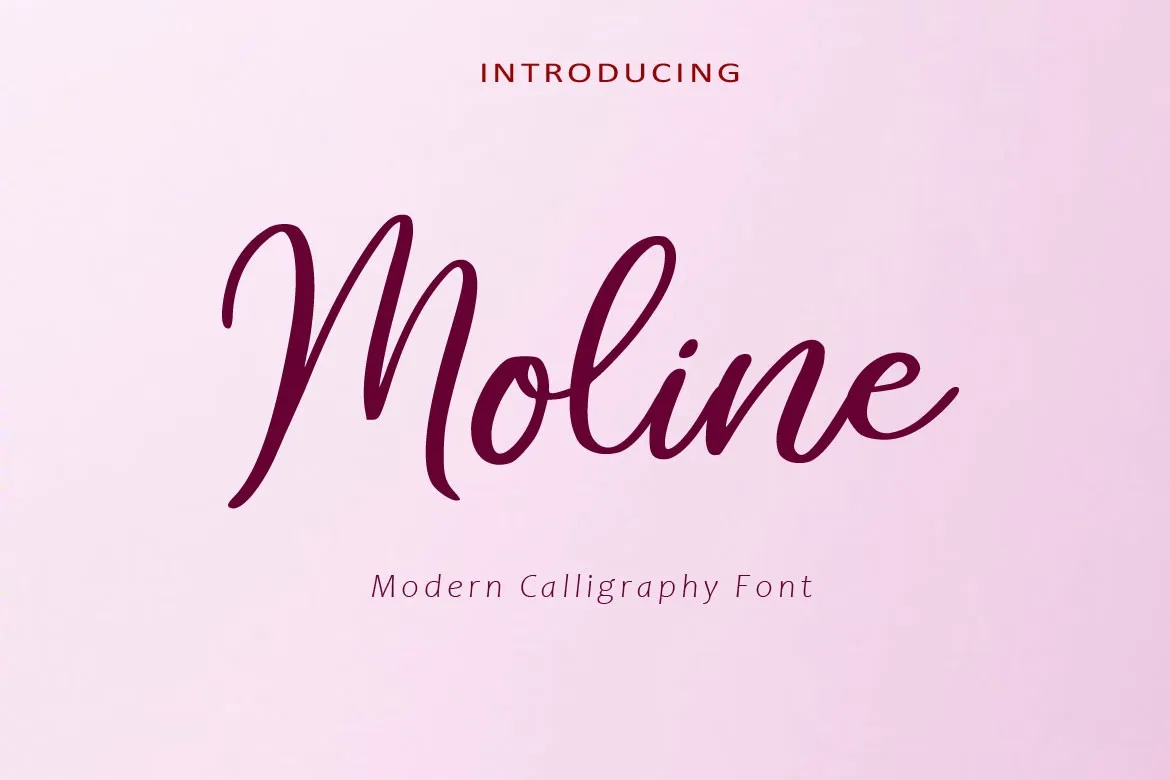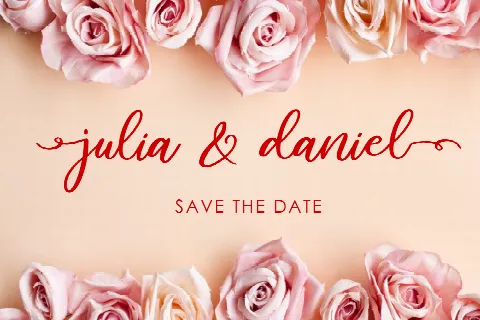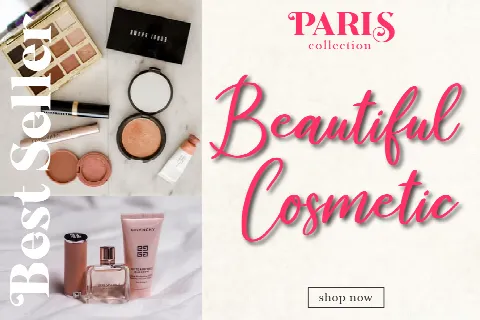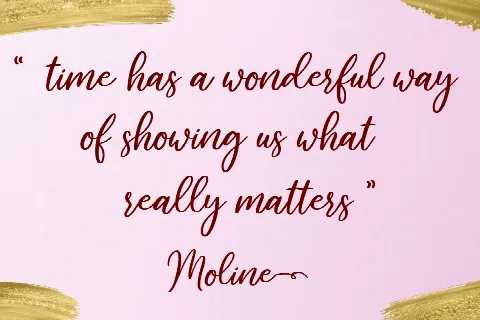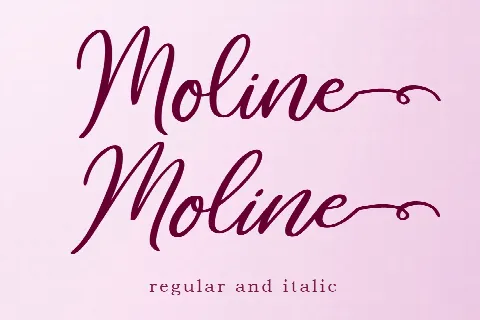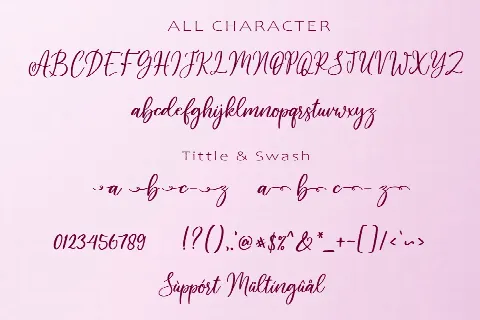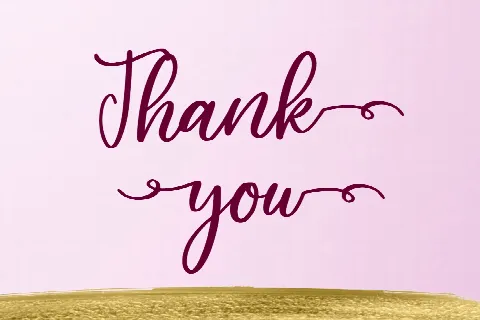
Moline
Introducing
Moline is a modern calligraphy font. Comes with regular and italic, also support multilingual. This is suitable for branding, header, quotes, invitations, stationery, wedding design, logos, watermarks on photography, signatures, advertisement, album covers, business cards, clothing, magazines, posters, and more!